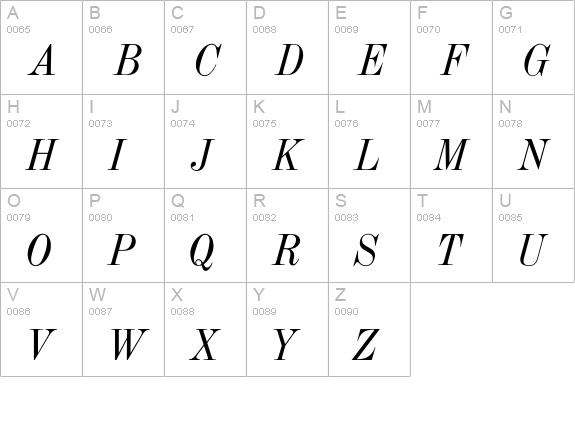
OPTITorry-Italic is a distinctive, italic variant in the OPTITorry typeface family \xE2\x80\x94 well suited to design and typography projects.
Introducing OPTITorry-Italic font, a sleek and elegant typeface that exudes sophistication and style. Perfect for adding a touch of class to any design project, this italic font features graceful curves and a modern aesthetic. What sets OPTITorry-Italic font apart is not just its stunning design, but also the fact that it is completely free to download. Available at FontsMarket.com, this premium font can be yours at no cost, making it the ideal choice for designers looking to elevate their work without breaking the bank. Whether you're working on a branding project, a website design, or any other creative endeavor, OPTITorry-Italic font is sure to make a lasting impression. Download it today and see for yourself the impact this exquisite font can have on your designs.